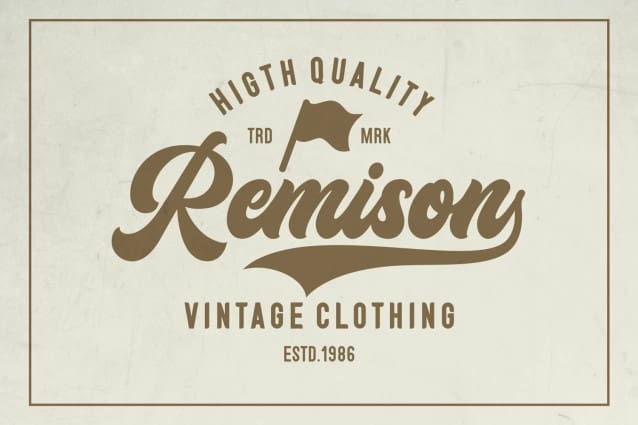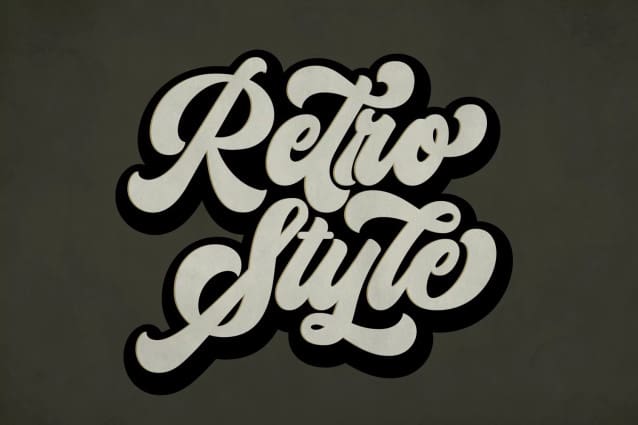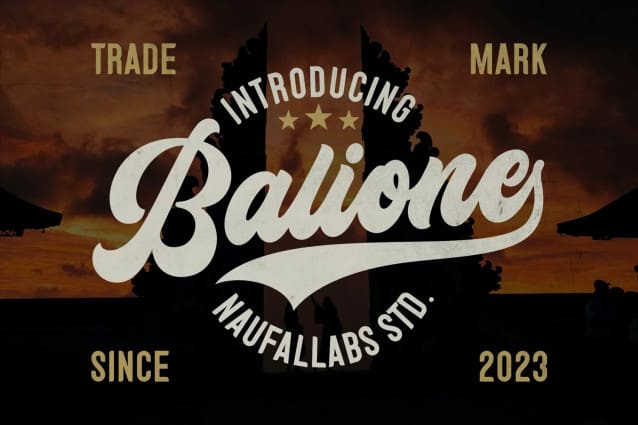
Balione Retro Font
Balione Retro Font is a retro font that will take you back in time with its unique and stylish design. With its vintage vibe and classic charm, Balione Retro is the perfect choice for anyone who wants to add a touch of nostalgia to their designs.
This font is carefully crafted to capture the essence of retro typography, with its bold and geometric shapes that evoke a sense of the past. It is perfect for creating logos, headlines, posters, and other designs that require a bold and eye-catching display.
With its classic style and modern features, this font is sure to impress and elevate any project to the next level. So why wait? Get your hands on Balione today and start creating stunning designs that capture the essence of retro typography!